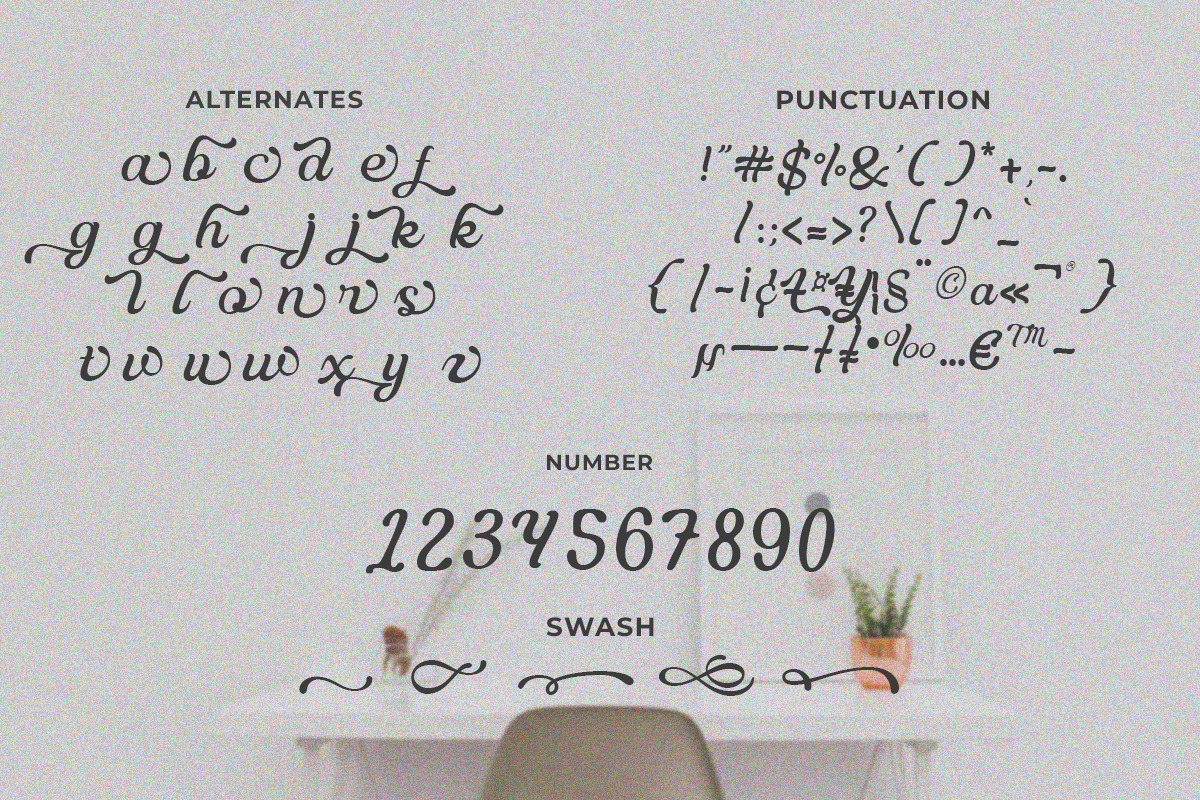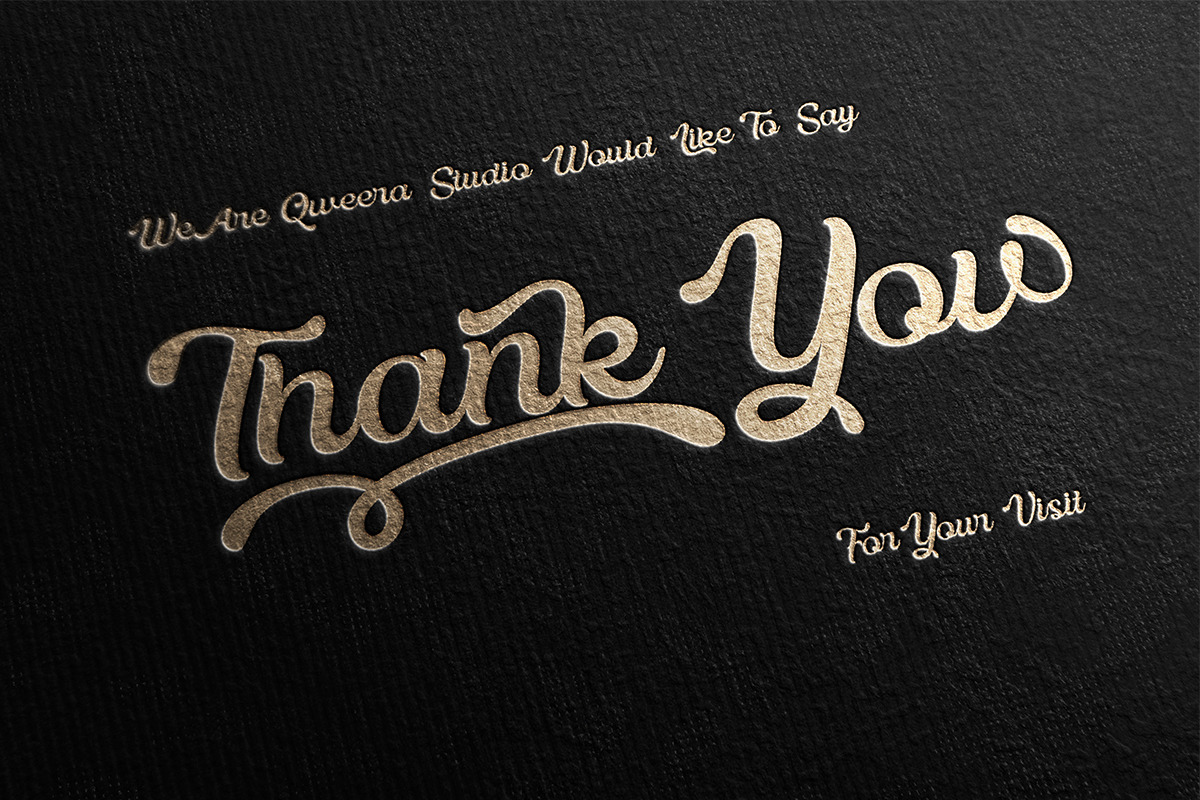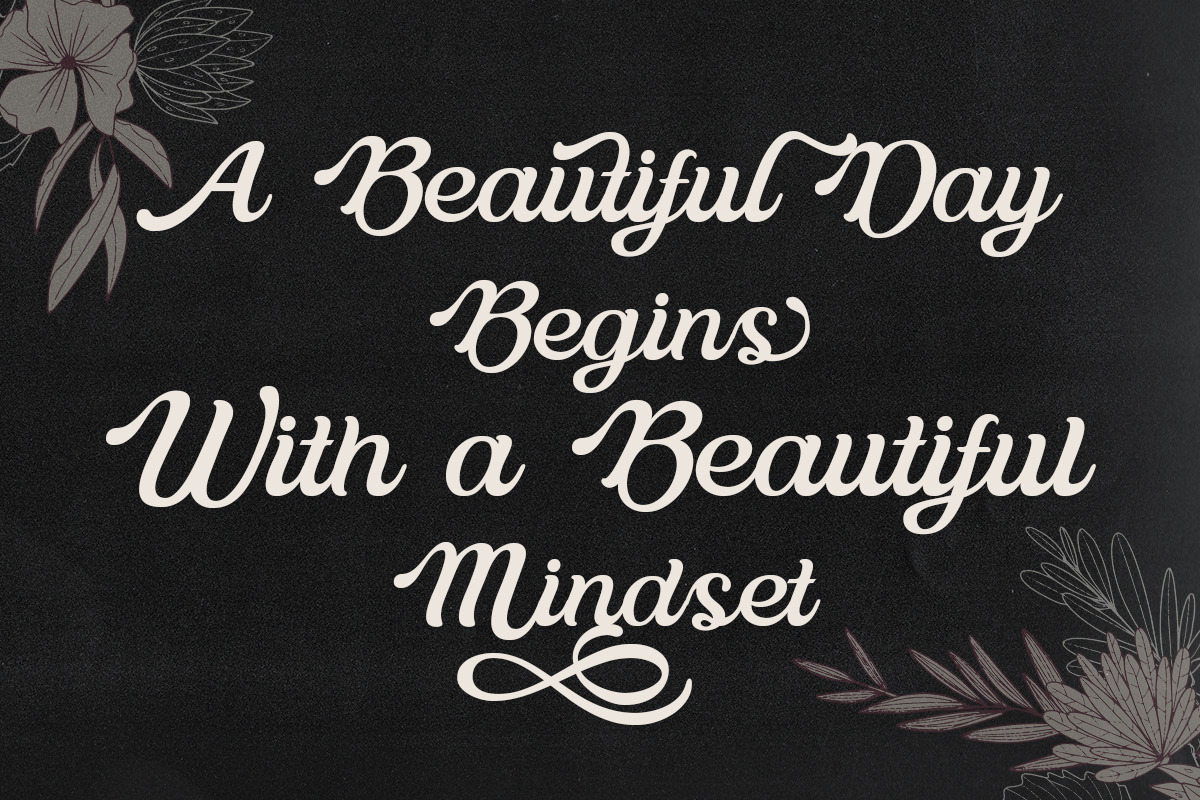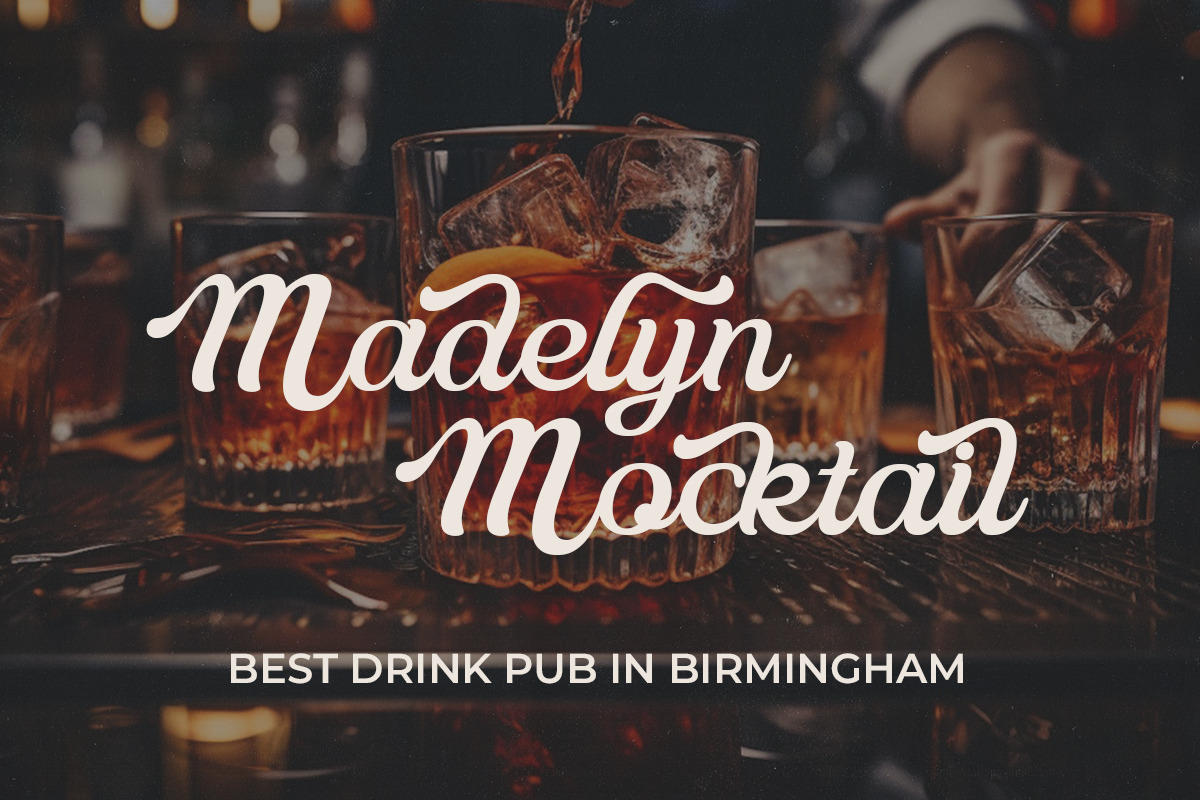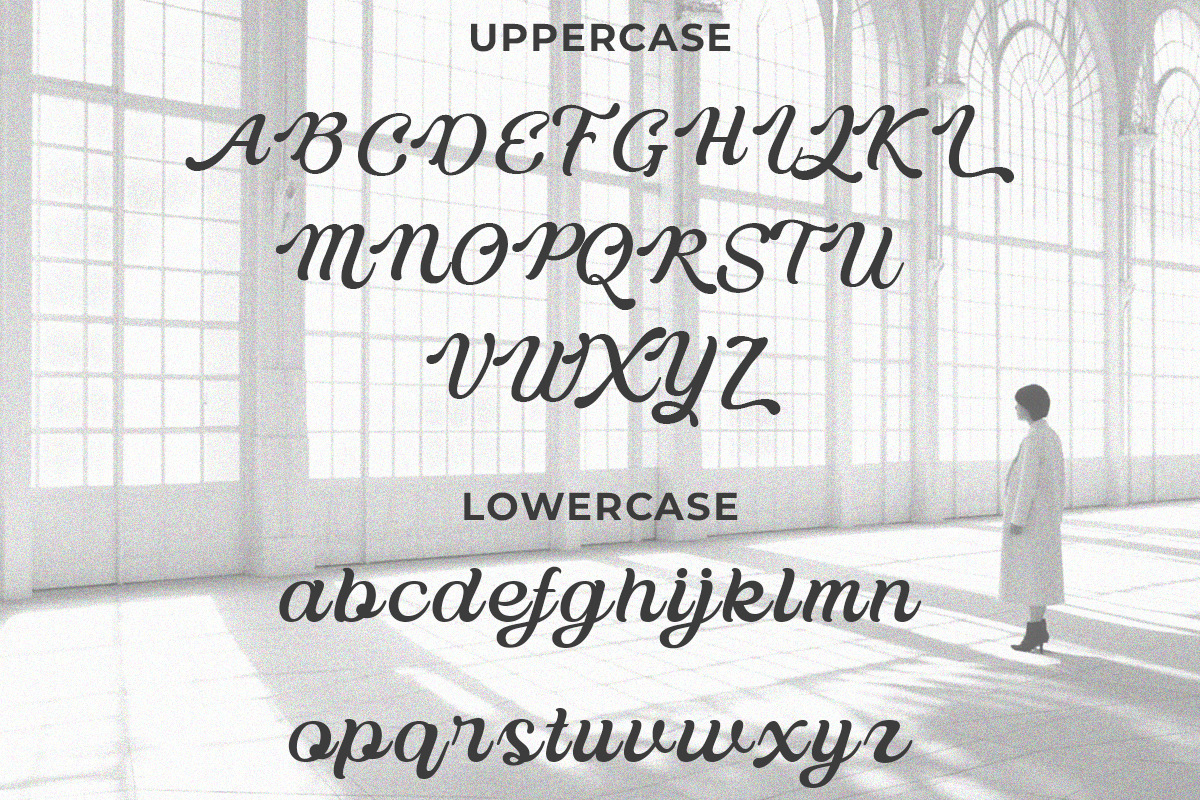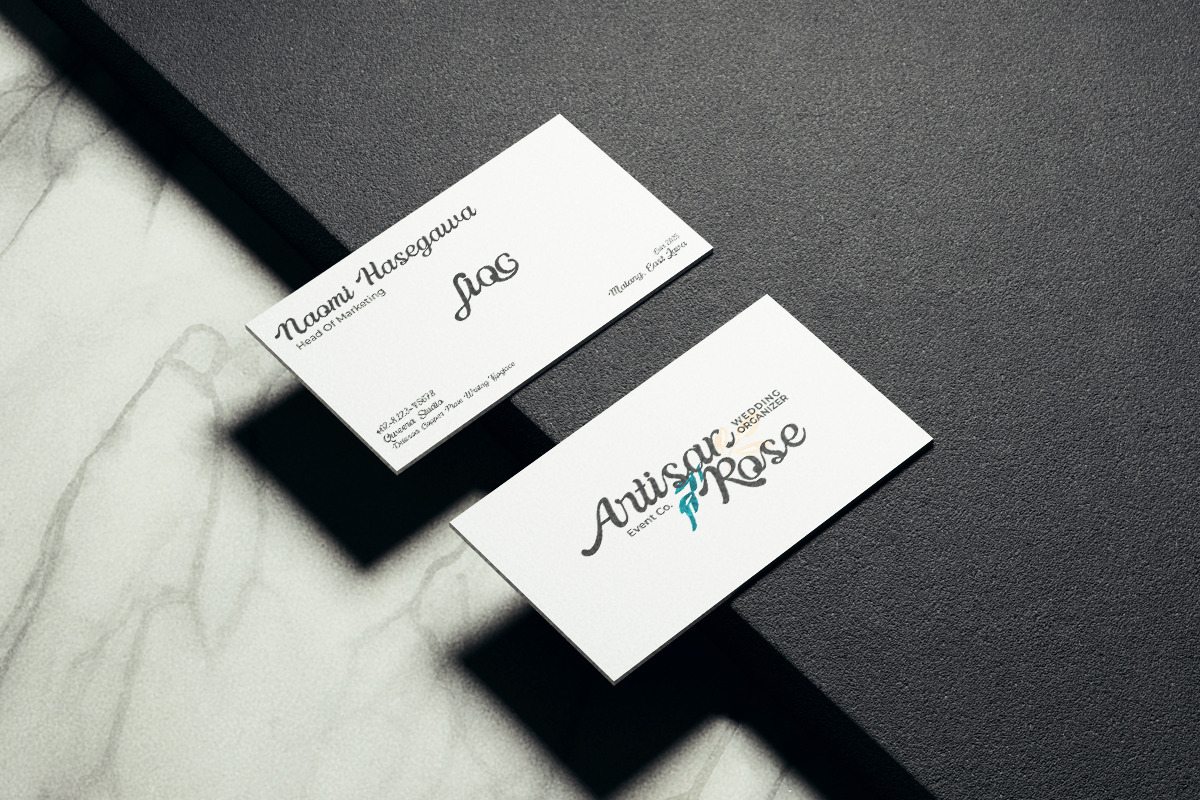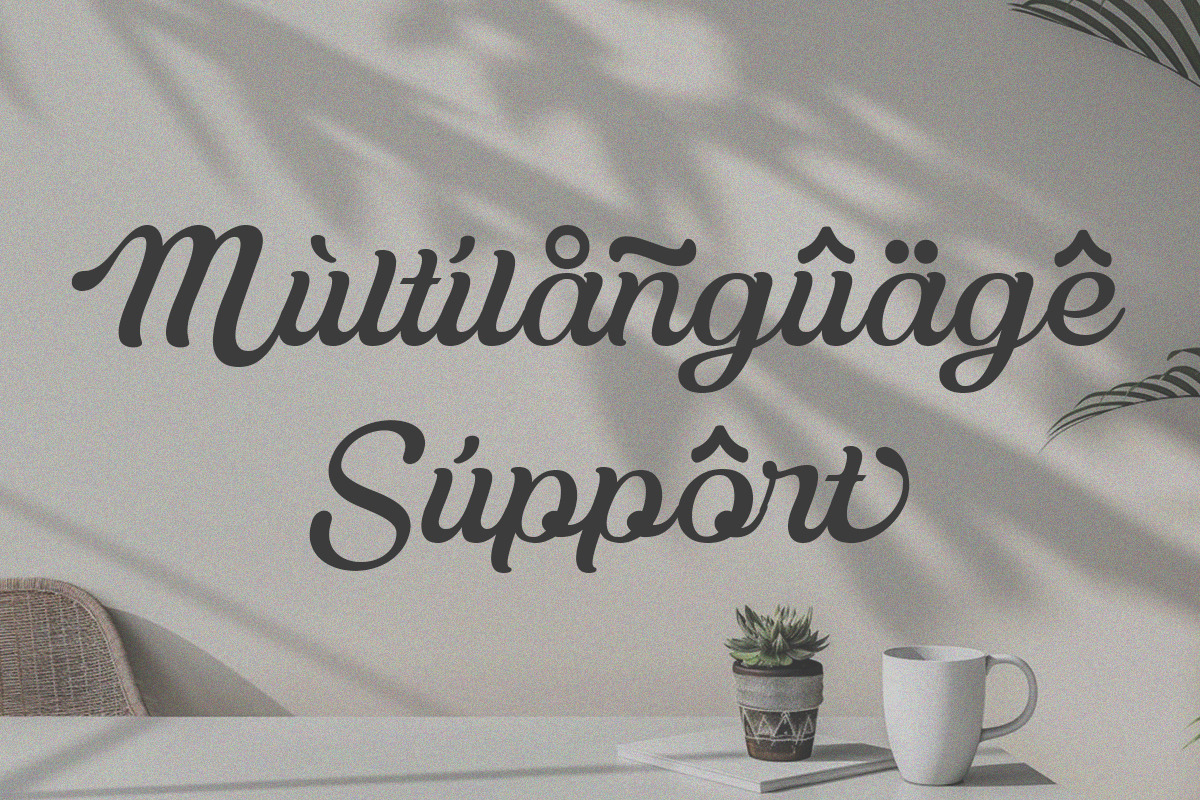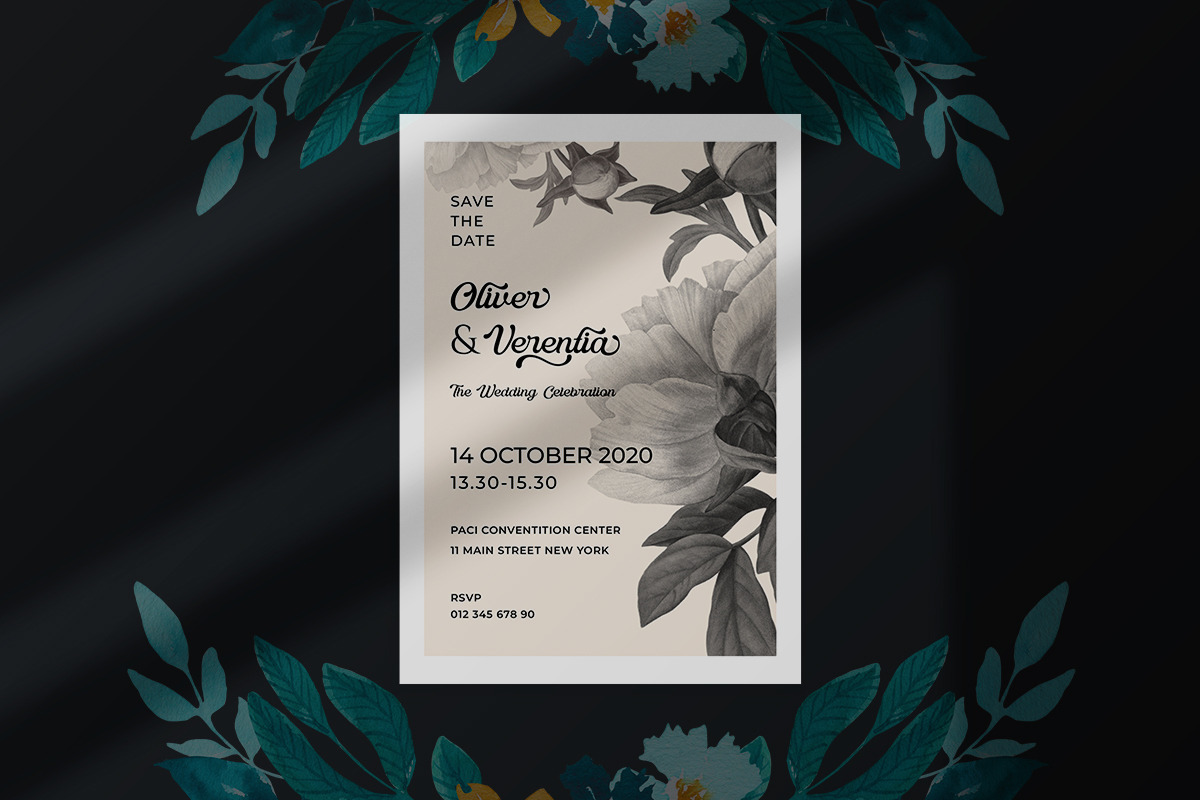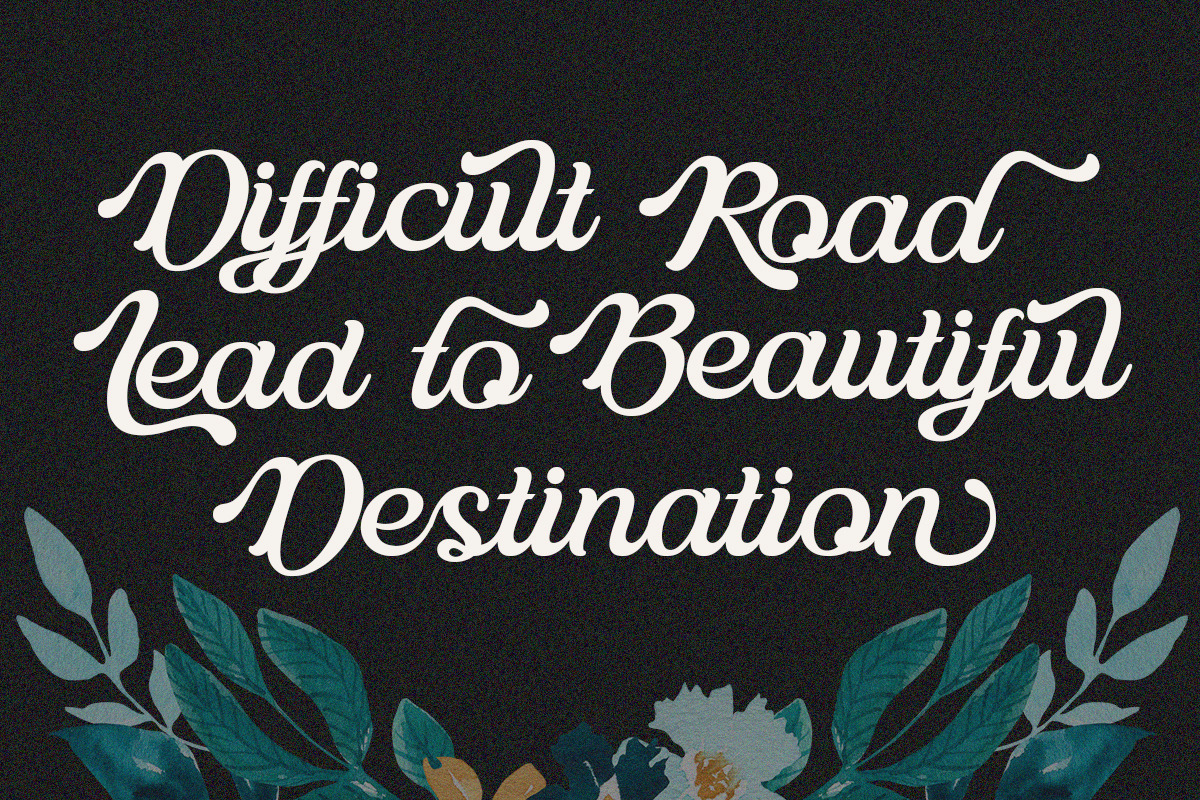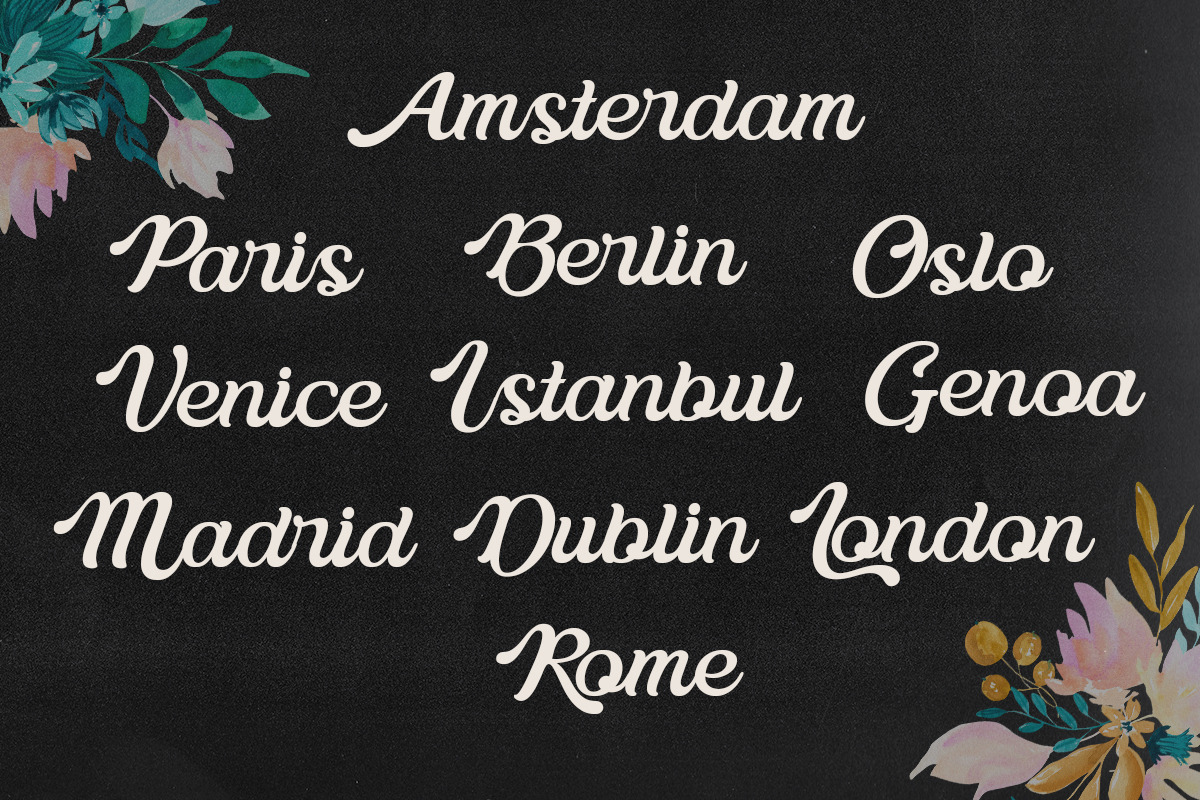
Delusoa - Minimalist Script
Delusoa – Minimalist Calligraphy Script Font
Delusoa is a stylish minimalist calligraphy script font with elegant alternates and swashes. Designed for flexibility, it allows users to create stunning typography effortlessly. Perfect for branding, posters, magazines, invitations, packaging, and print designs, Delusoa brings a refined and modern handwritten touch to your projects. Elevate your designs with this smooth, flowing script font.
- Opentype features ( ligature, alternate )
Multilingual character supports : (Afrikaans, Albanian, Catalan, Croatian, Czech, Danish, Dutch, English, Estonian, Finnish, French, German, Hungarian, Icelandic, Italian, Lithuanian, Maltese, Norwegian, Polish, Portuguese, Slovenian, Spanish, Swedish, Turkish, Zulu)